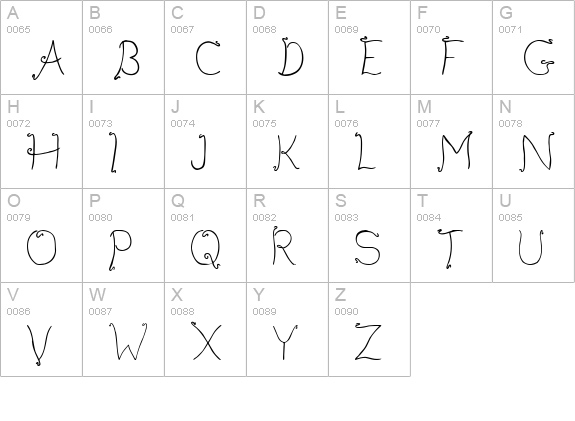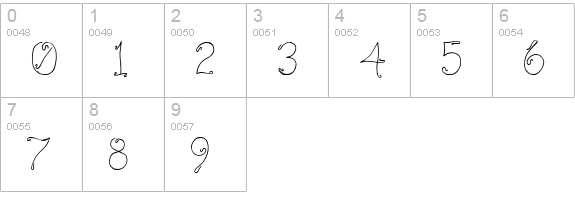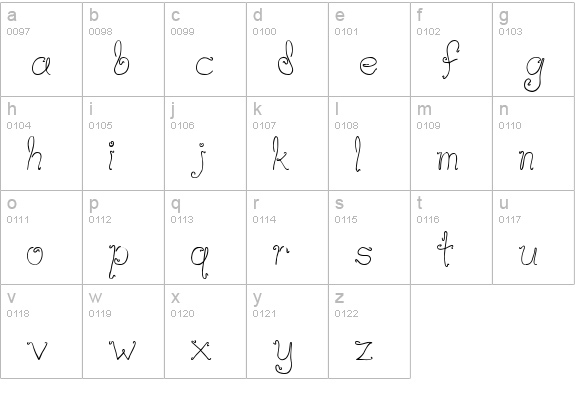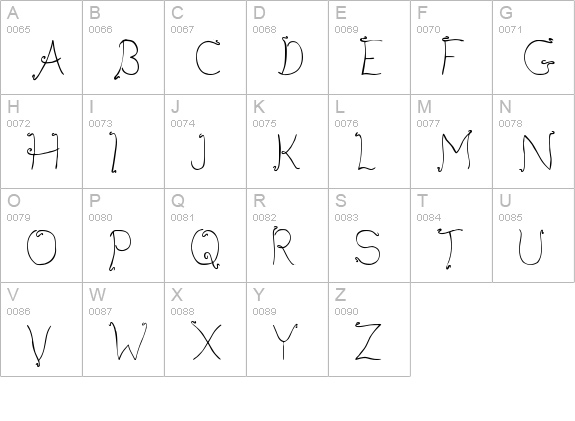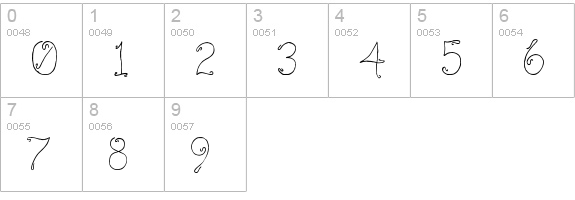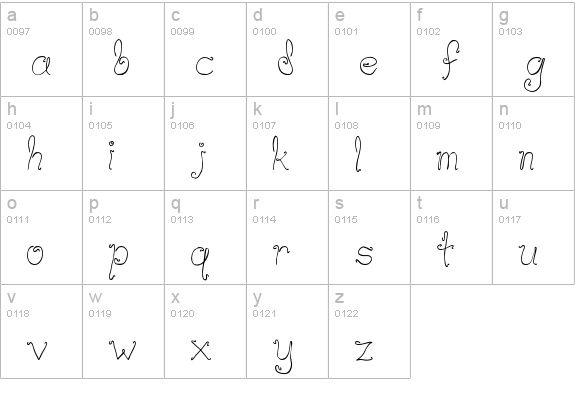
Waif Thin Font Details
Waif Thin is a delicate, low-contrast variant in the Waif typeface family \xE2\x80\x94 well suited to fashion editorial, minimal branding, and high-contrast display.
Waif Thin font is a delicate and elegant typeface that exudes a sense of grace and sophistication. With its slender letterforms and subtle curves, this font is perfect for adding a touch of refinement to any design project. Whether used for headlines, invitations, or branding materials, Waif Thin font brings a sense of lightness and beauty to your work. Best of all, Waif Thin font is completely free to use! You can download this gorgeous typeface at FontsMarket.com and start incorporating its charm into your projects today. Don't miss out on the opportunity to elevate your designs with the timeless elegance of Waif Thin font.